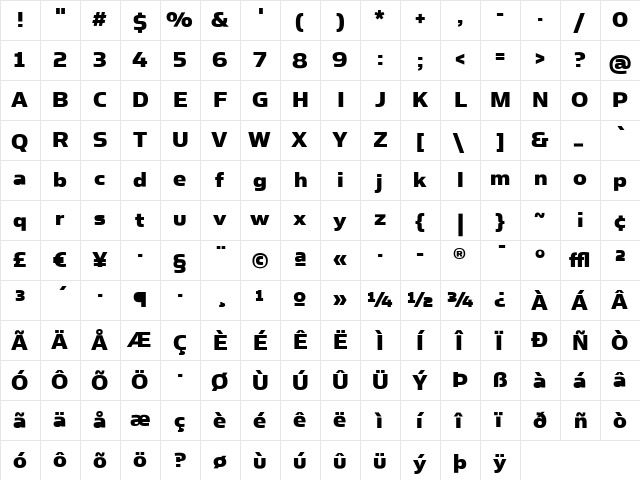
SimianText-Chimpanzee Medium Font Preview
SimianText-Chimpanzee Medium
SimianText-Chimpanzee Medium Font Details
| Foundry | House Industries/Brand Design Co. and The Font Bureau, Inc |
Design Context for SimianText-Chimpanzee Typeface
SimianText-Chimpanzee offers clean, dependable letterforms without strong stylistic allegiance, making it a practical choice for designers who need flexibility.